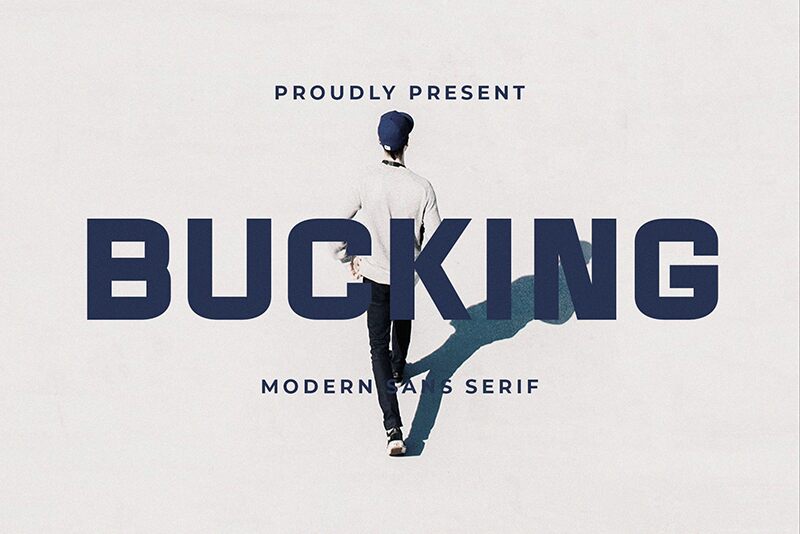
Bucking Regular
Bucking, designed by BrandSemut, stands out as a bold sans serif font with a semi-expanded width that exudes confidence and modernity. Its robust character stems from the assertive weight of the strokes, making it an excellent choice for headlines, branding projects, and impactful presentations where clarity and strength are paramount. The clean lines and generous spacing grant Bucking both readability and a contemporary feel.
This font is particularly suited for designers looking to make a statement while maintaining elegance and functionality in their creative endeavors.